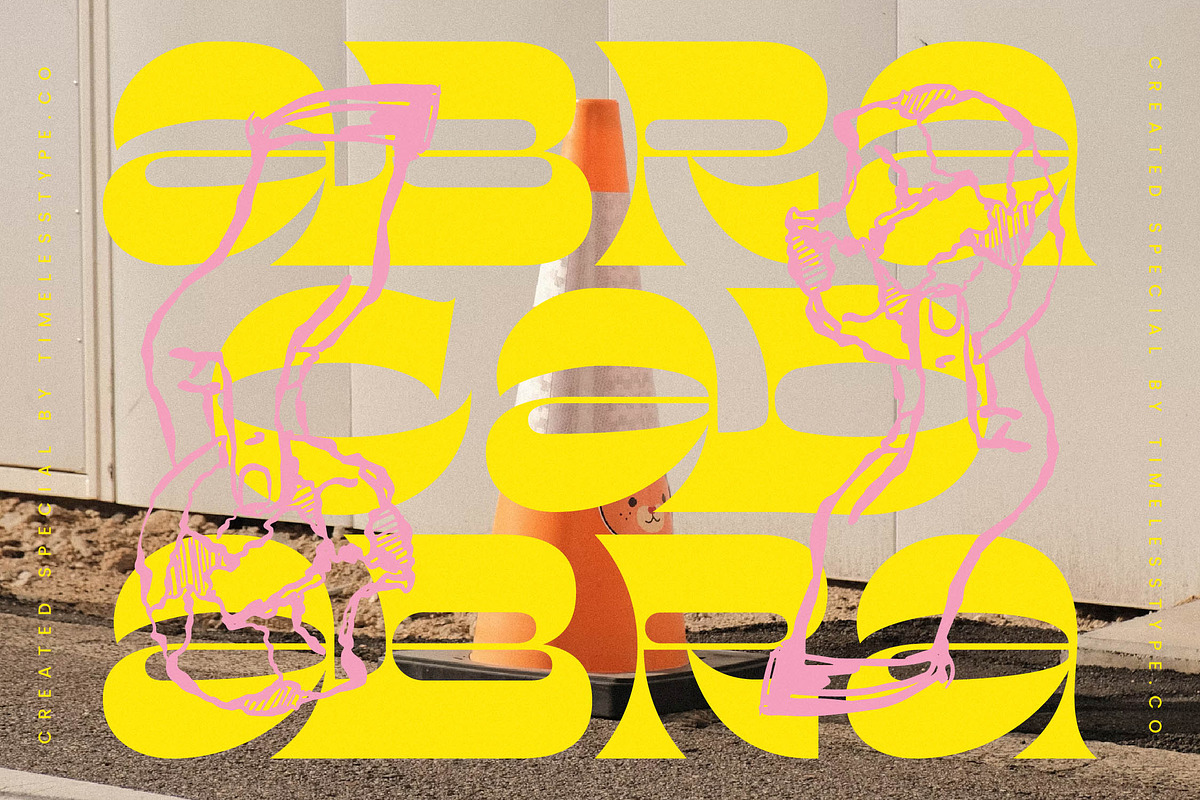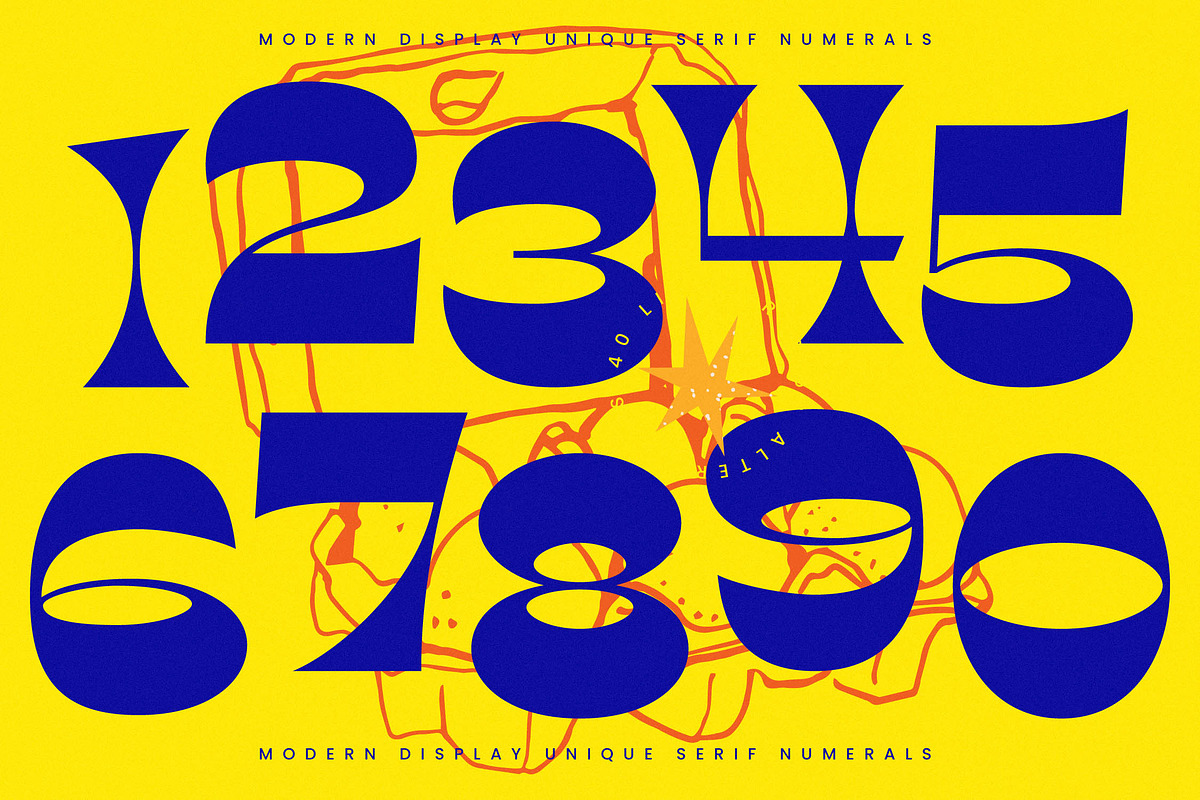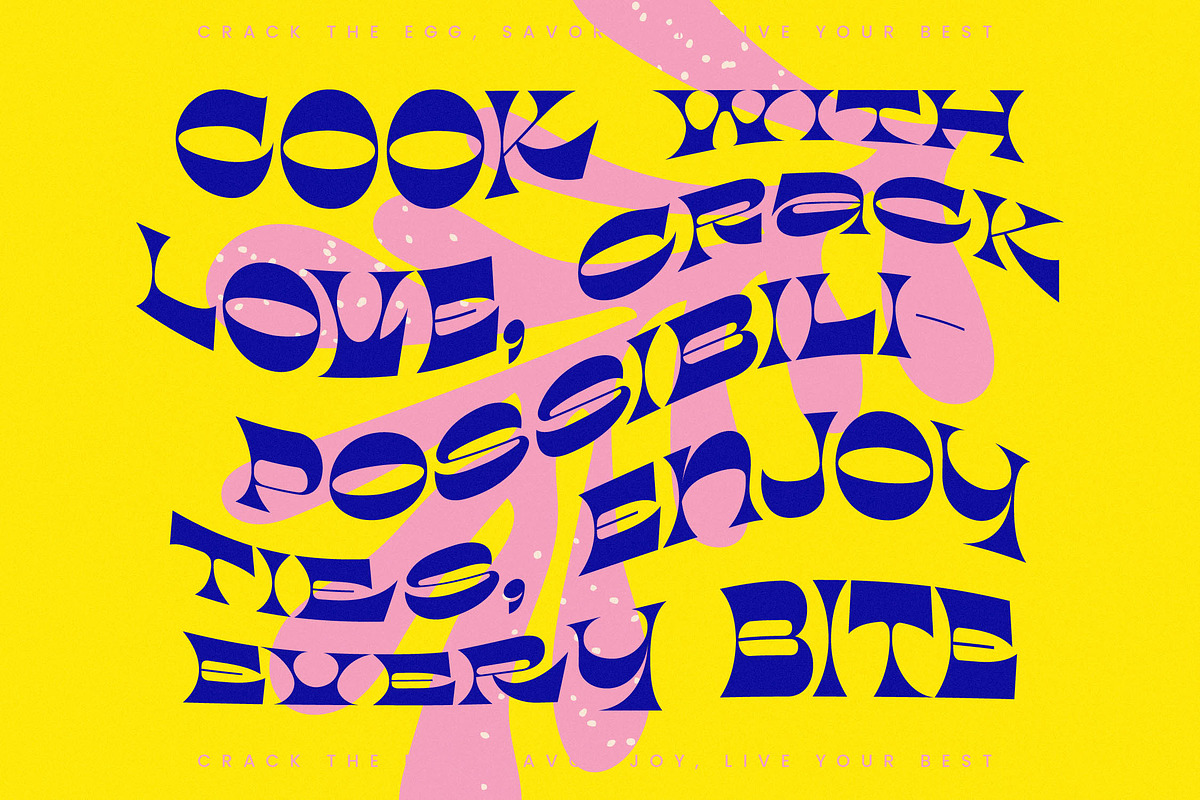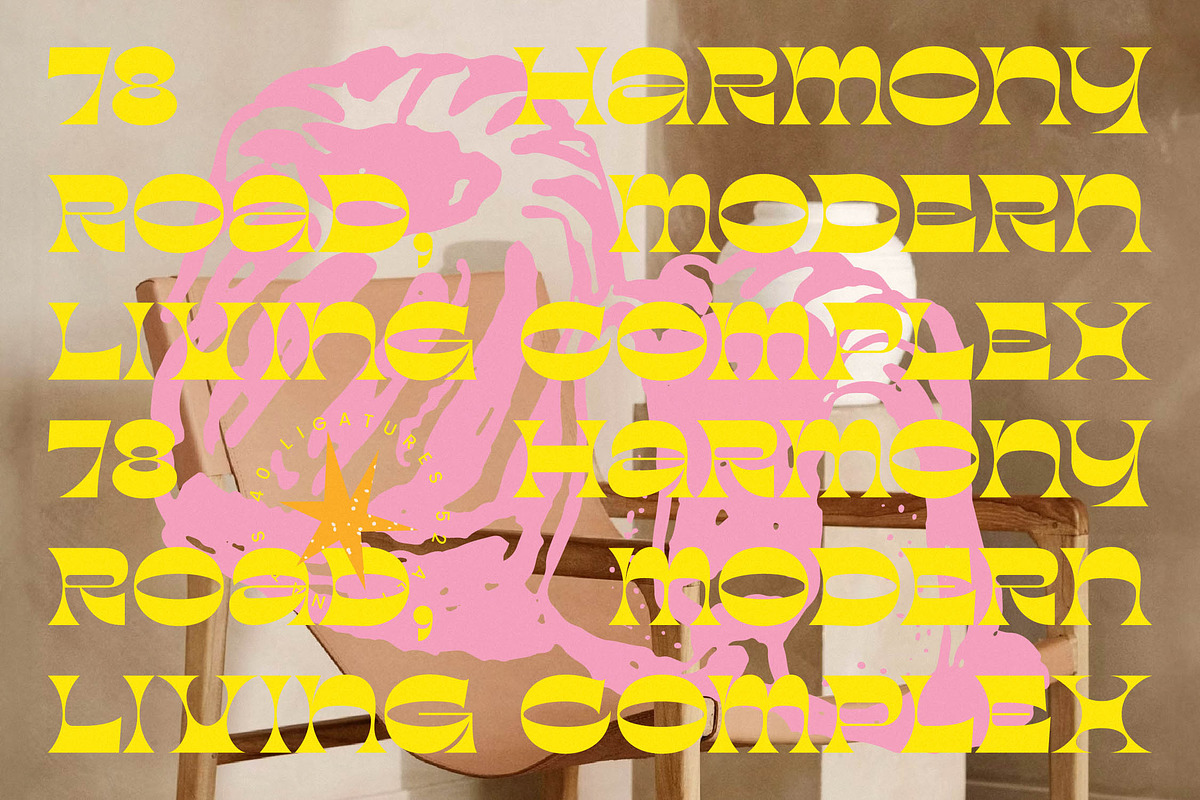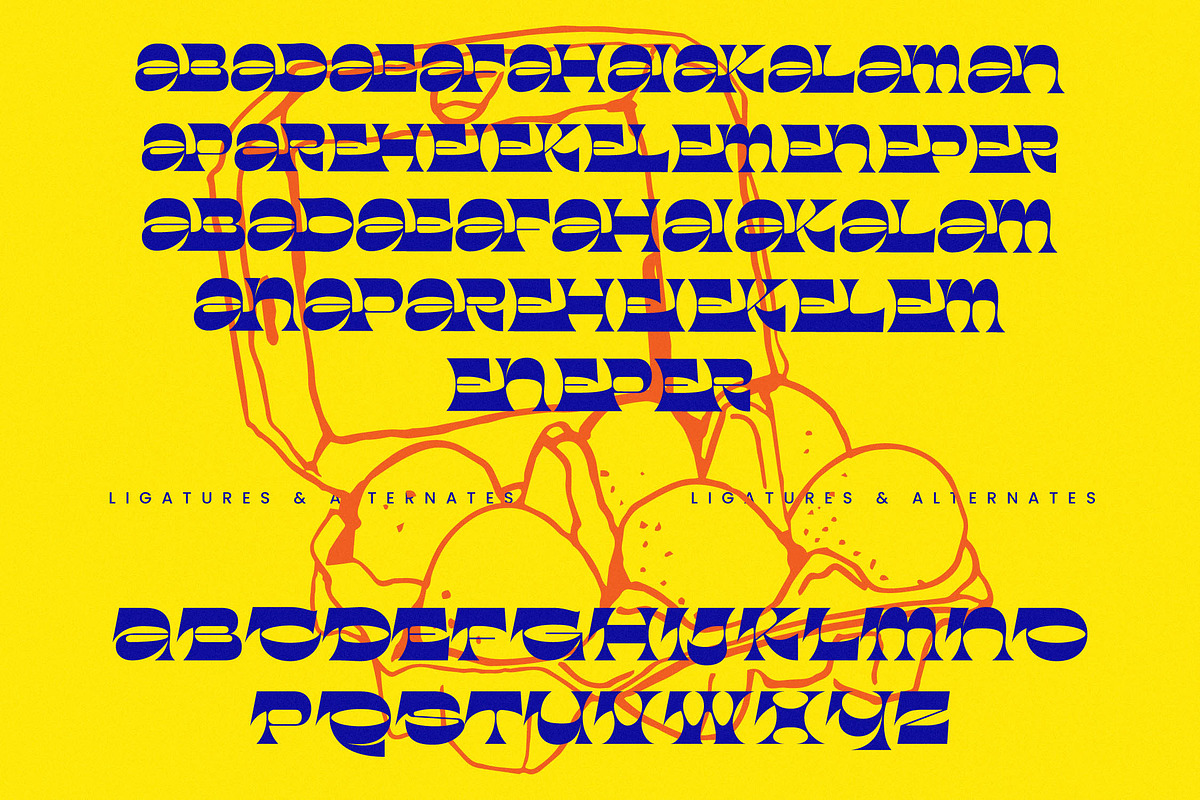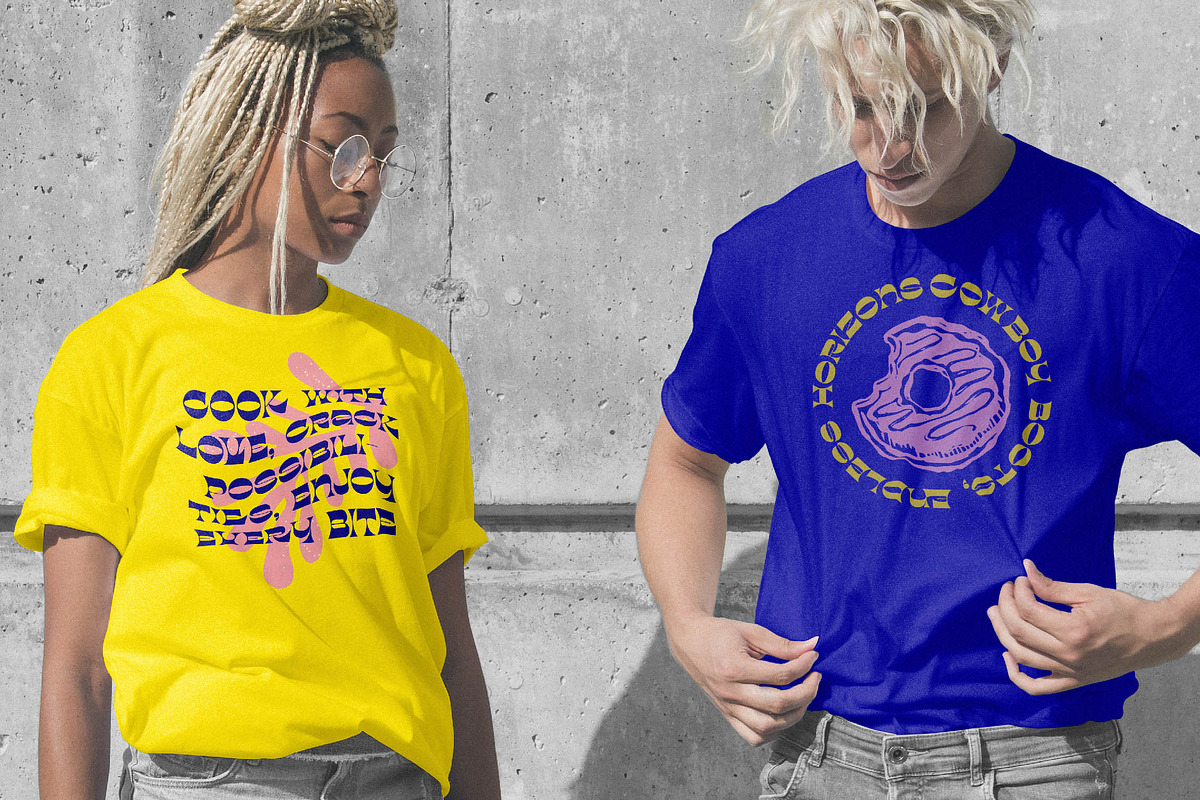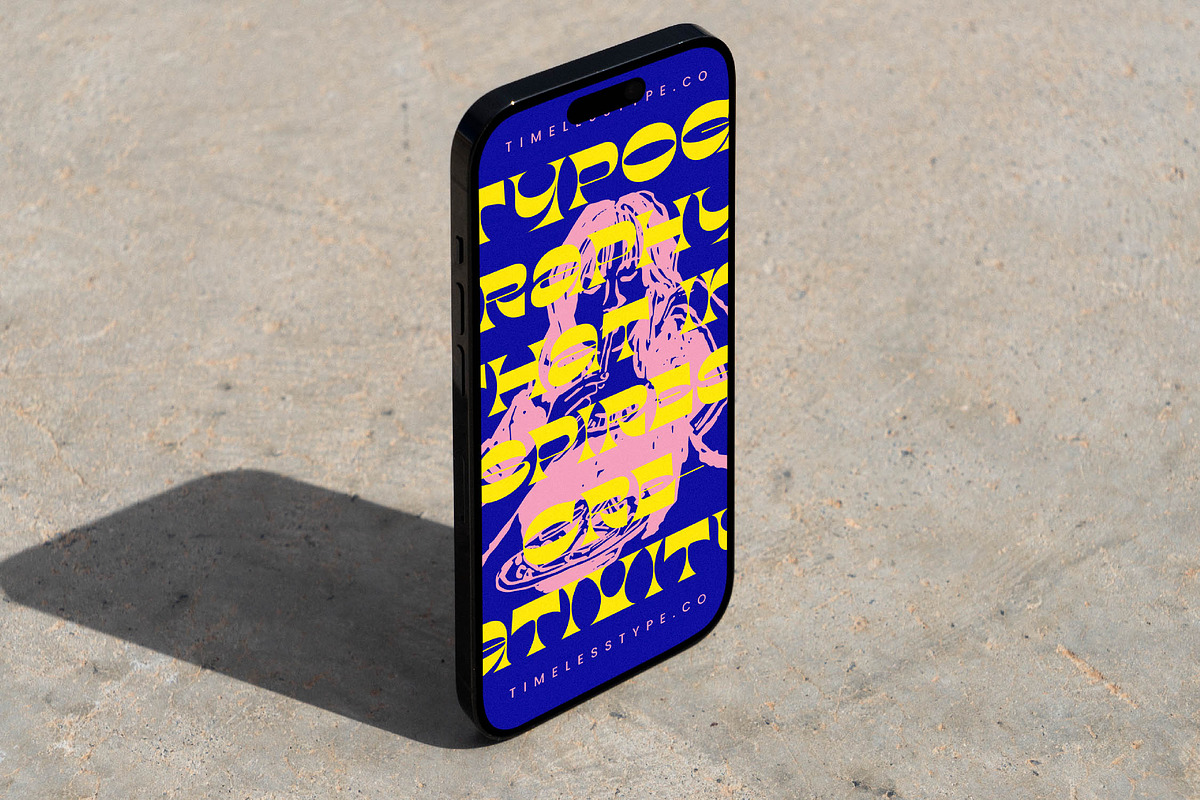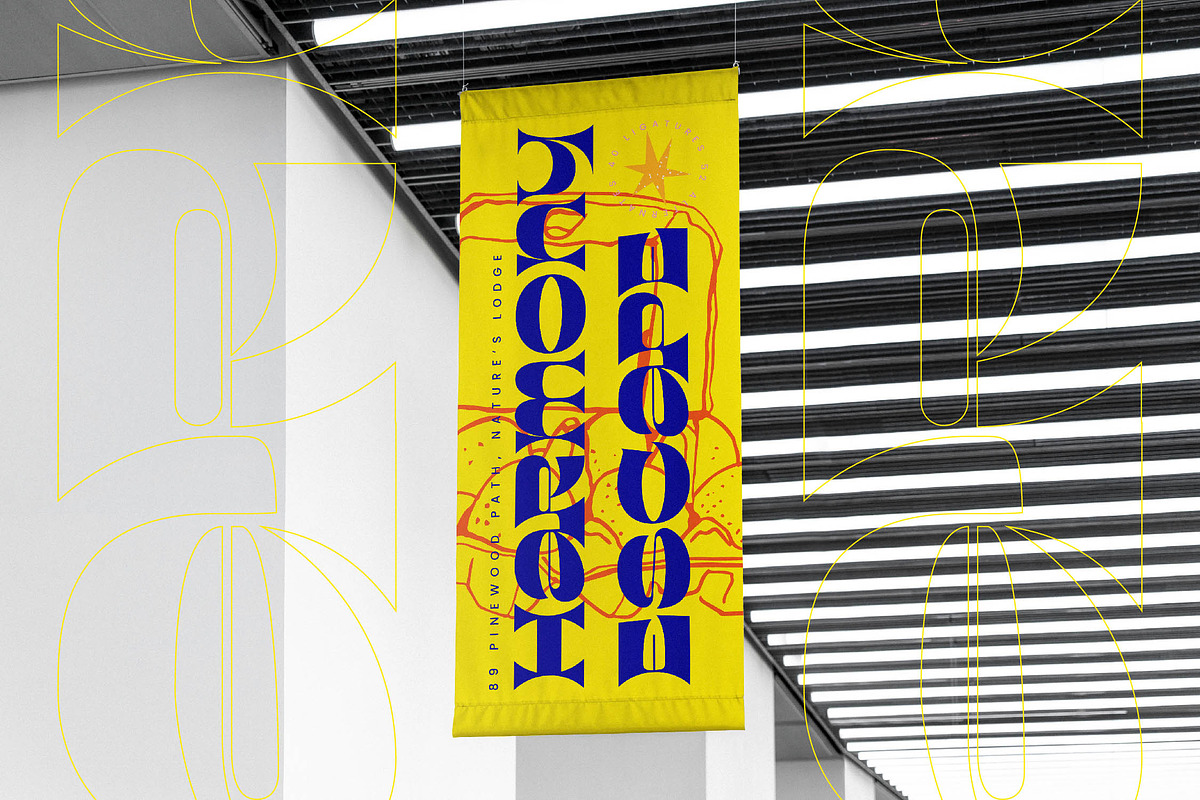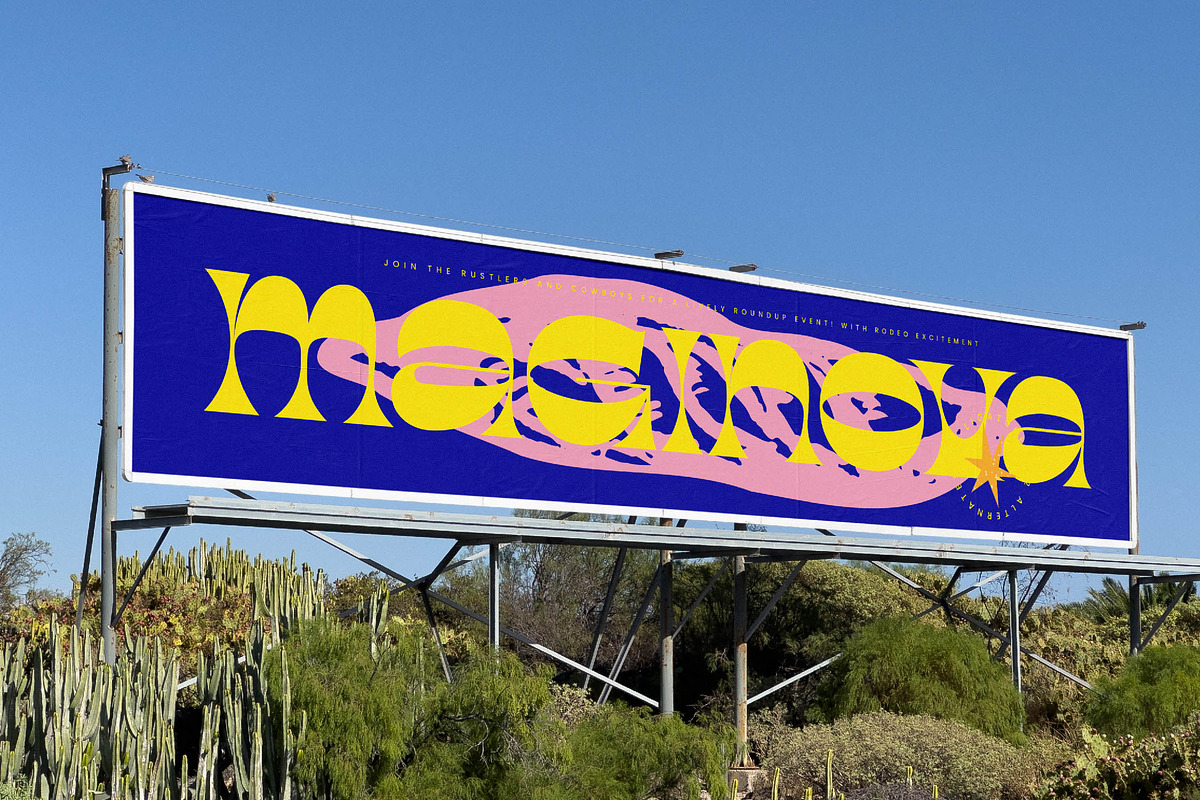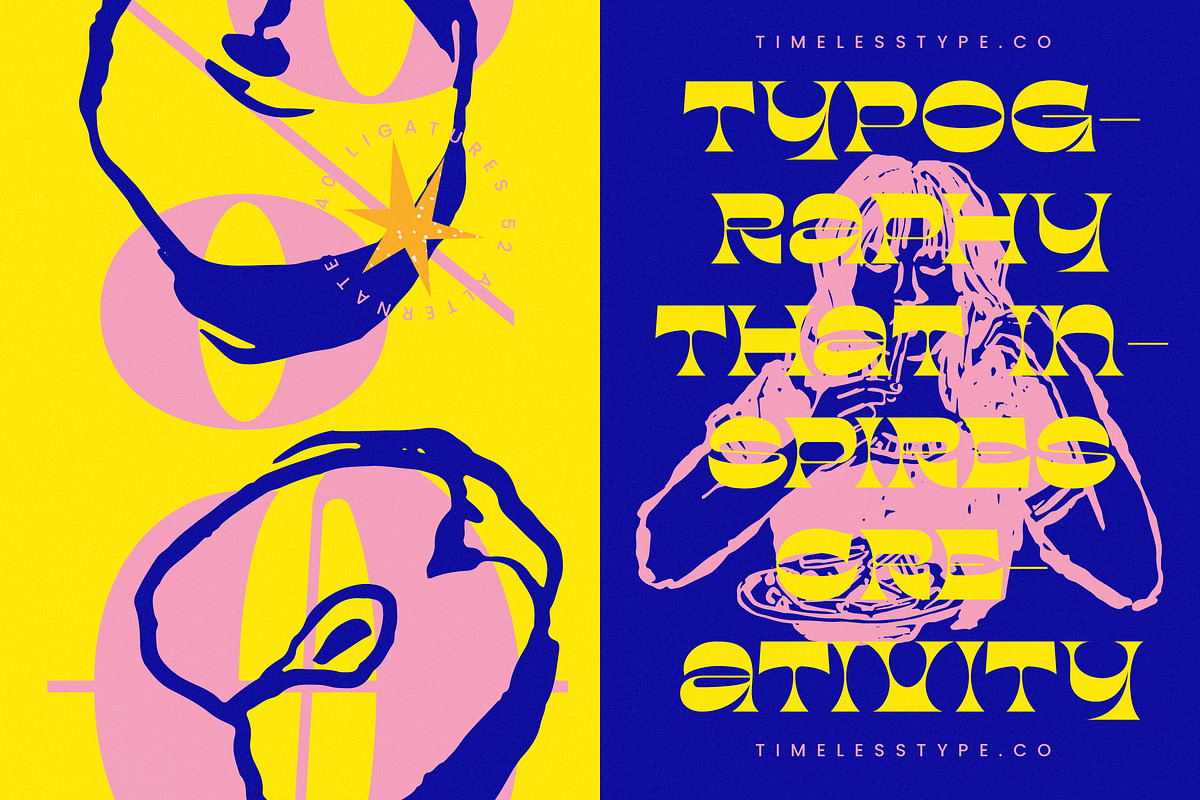
Charmo Style Modern Display Serif
Make a bold statement with Charmo Style, a high-octane display serif that pulses with rhythmic energy and visual charisma. This typeface is designed to command attention and transform ordinary layouts into extraordinary pieces of art.
Inspired by the fluid movements of 1970s psychedelia merged with contemporary liquid design, the font captures a unique balance between organic curves and sharp, structural precision. It evokes an atmosphere of creative freedom and sophisticated rebellion that feels both vintage and futuristic.
With its modern serif display aesthetic and luxury typography weight, this font delivers a powerful branding impact through its high-contrast serif forms and editorial font sophistication. Every character is a focal point, ensuring your message is felt as much as it is read.
Perfectly aligned with the current modern serif trend and the rise of character-driven typography, this typeface stands at the forefront of editorial display fonts that prioritize personality over passivity. It is the ideal choice for designers looking to break the mold and set new visual standards in a crowded marketplace.
This versatile tool is built for high-end branding and logo design, but it shines equally in editorial spreads, bold packaging concepts, avant-garde wedding stationery, and the fast-paced world of fashion marketing. Its expressive nature turns every word into a signature statement.
The package is fully loaded with a rich set of ligatures and alternates to provide endless customization, while full multilingual support and international characters ensure your creative vision translates globally with ease. These swashes and decorative glyphs offer the flexibility needed for professional-grade design work.